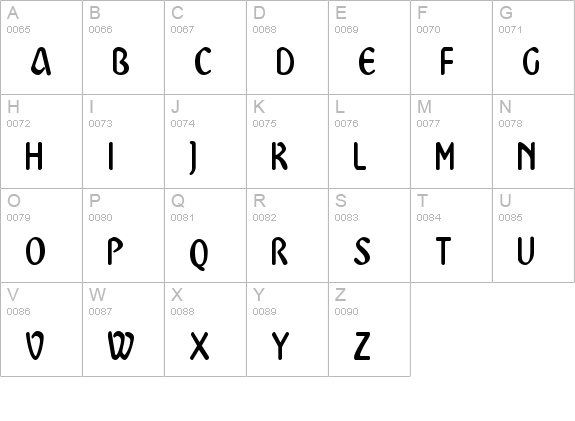
WestminsterNarrow Regular Font Details
WestminsterNarrow Regular is the standard, neutral variant in the WestminsterNarrow typeface family \xE2\x80\x94 well suited to general body text, paragraphs, and standard typographic work.
WestminsterNarrow Regular font is a stylish and versatile typeface that is perfect for various design projects. It features a narrow and elegant structure, making it ideal for headings, titles, logos, and other attention-grabbing elements. The clean and crisp lines of this font give it a modern and sophisticated look, while still maintaining a timeless charm. With its balanced letterforms and excellent legibility, WestminsterNarrow Regular font is suitable for both print and digital applications. Whether you're designing a magazine layout, creating a website, or working on branding materials, this font will add a touch of professionalism to your work. What makes WestminsterNarrow Regular font even more appealing is that it is freely available to download at FontsMarket.com. This means that you can easily access this font and use it in your projects without any restrictions. Whether you're a professional designer or a hobbyist, having access to quality fonts like WestminsterNarrow Regular can greatly enhance your creative endeavors. So, if you're looking for a versatile and visually pleasing font that is both modern and timeless, look no further than WestminsterNarrow Regular. Download it for free at FontsMarket.com and start elevating your designs today.